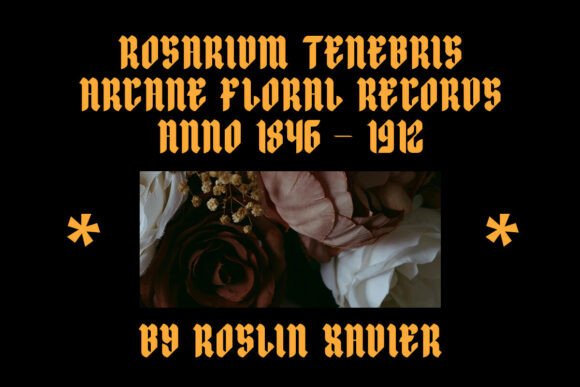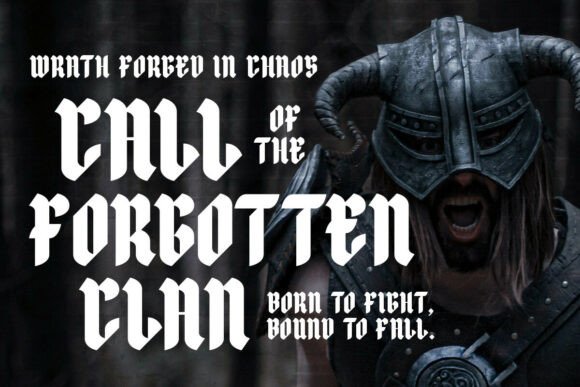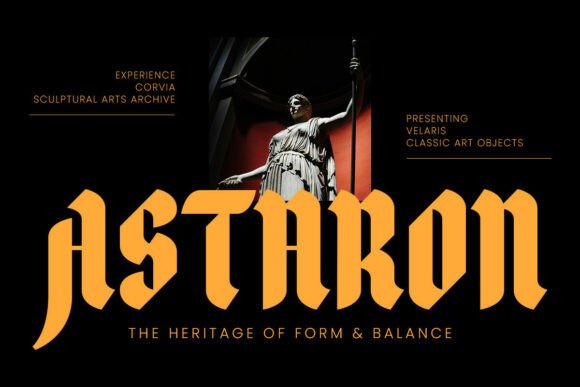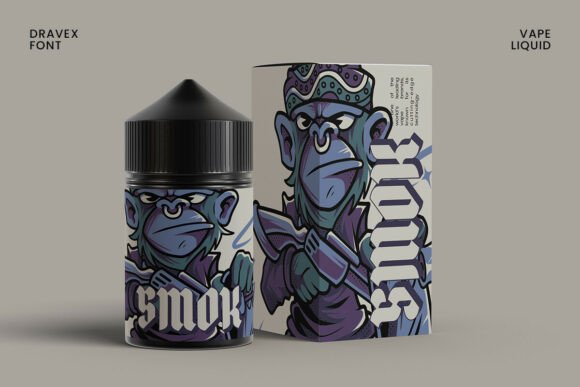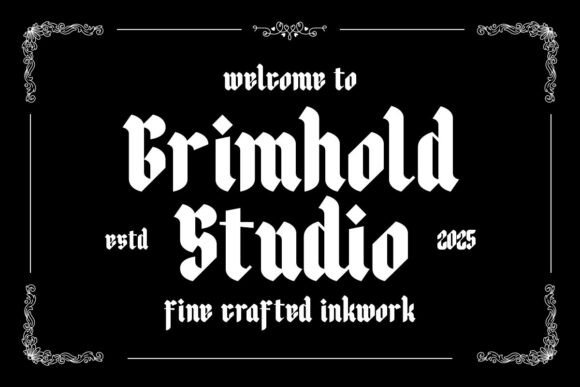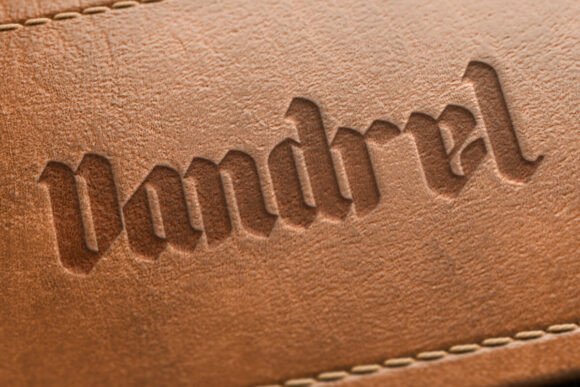
Unleash the Power of Draven Font: A Gothic-Inspired Blackletter Display Font
In the world of typography, fonts play a crucial role in conveying the tone and personality of a brand, product, or artwork. For designers and crafters looking to make a bold statement, the Draven font, also known as Dravex, is an excellent choice. This gothic-inspired blackletter display font seamlessly blends old-world drama with modern attitude, making it perfect for a wide range of creative projects.
The Unique Characteristics of Draven Font
Dravex, or Draven font, boasts several distinctive features that set it apart from other fonts. Its bold contrast strokes, sharp edges, and assertive presence give it a commanding appearance that’s hard to ignore. The font’s design combines the ornate, intricate details of traditional blackletter typography with a modern twist, making it versatile enough to be used in both minimal and expressive styles.
Applications of Draven Font
The Draven font is incredibly versatile and can be used in a variety of creative projects, including:
- Album Covers: The dramatic and bold appearance of Draven font makes it an ideal choice for album covers, particularly in the music genres that value a strong visual identity, such as heavy metal, rock, and gothic music.
- Editorials: Add a touch of elegance and mystery to your editorials with the Draven font. Its unique blend of old-world charm and modern flair can elevate the visual appeal of any editorial piece.
- Brand Identities: For brands looking to establish a bold and memorable identity, the Draven font can be a valuable asset. Its distinctive appearance can help a brand stand out in a crowded market.
- Poster Layouts: Whether you’re designing a poster for a concert, exhibition, or event, the Draven font can help you create a visually striking layout that captures the attention of your audience.
- Digital Art: The Draven font’s blend of traditional and modern elements makes it a great choice for digital artists looking to add a unique touch to their artwork.
Why Choose Draven Font?
So, why should designers and crafters choose the Draven font for their projects? Here are a few compelling reasons:
- Unique Aesthetic: The Draven font offers a distinctive aesthetic that’s both ancient and futuristic. Its ability to blend old-world drama with modern attitude makes it a valuable addition to any designer’s toolkit.
- Versatility: The Draven font is incredibly versatile and can be used in a wide range of projects, from traditional print materials to digital art.
- Emotional Impact: The bold and assertive presence of the Draven font can evoke strong emotions and create a lasting impression on the viewer.
Tips for Using Draven Font Effectively
To get the most out of the Draven font, here are a few tips to keep in mind:
- Use it Sparingly: Due to its bold and assertive nature, it’s best to use the Draven font sparingly. Use it as a headline or title font to make a statement, and then switch to a more neutral font for the body text.
- Experiment with Colors: The Draven font can be used in a variety of colors, from classic black and white to bold and bright hues. Experiment with different colors to find the one that works best for your project.
- Pair it with Other Fonts: The Draven font can be paired with other fonts to create a unique and visually appealing combination. Try pairing it with a sans-serif font for a modern look or a serif font for a more traditional feel.
| Font Name | Draven Font |
| Author | roomspace |
In conclusion, the Draven font is a powerful and versatile tool that can add a unique touch to any creative project. Its blend of old-world drama and modern attitude makes it perfect for designers and crafters looking to make a bold statement. With its bold contrast strokes, sharp edges, and assertive presence, the Draven font is sure to leave a lasting impression on your audience.